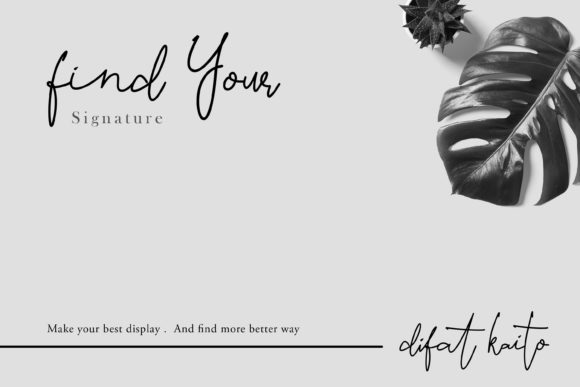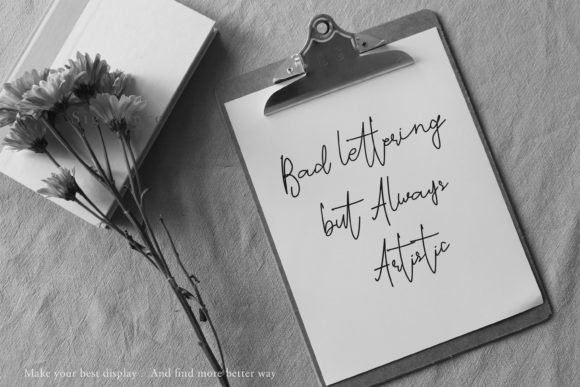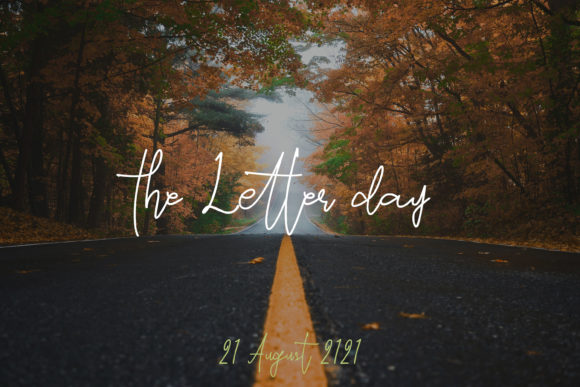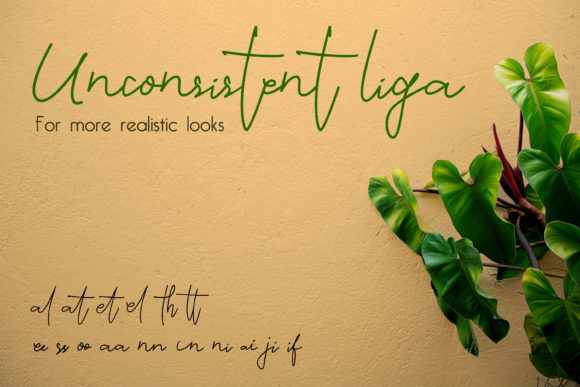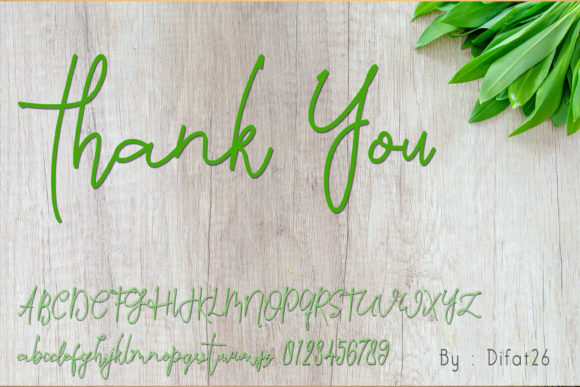
Not a Student Font
Not a Student is a thin lettered and delicate script font. It looks lovely on wedding invitations, thank you cards, quotes, greeting cards, logos, business cards and every other design which needs a customized touch.